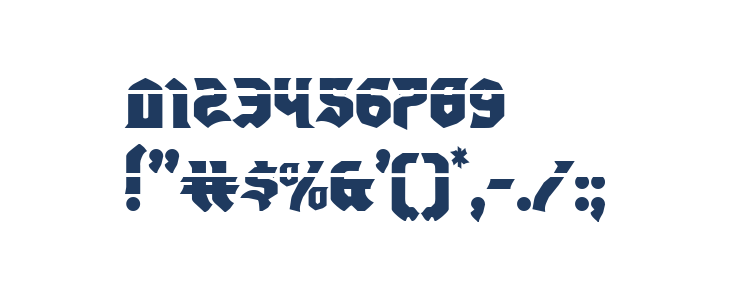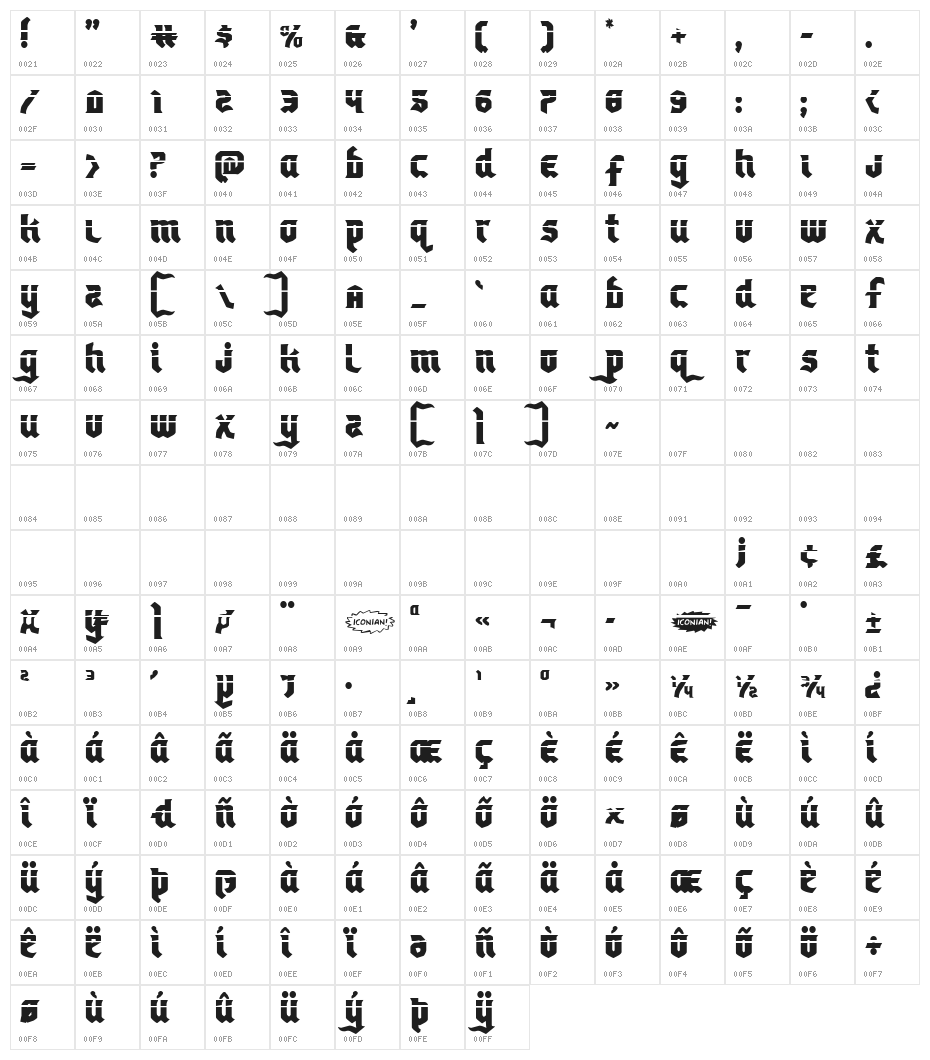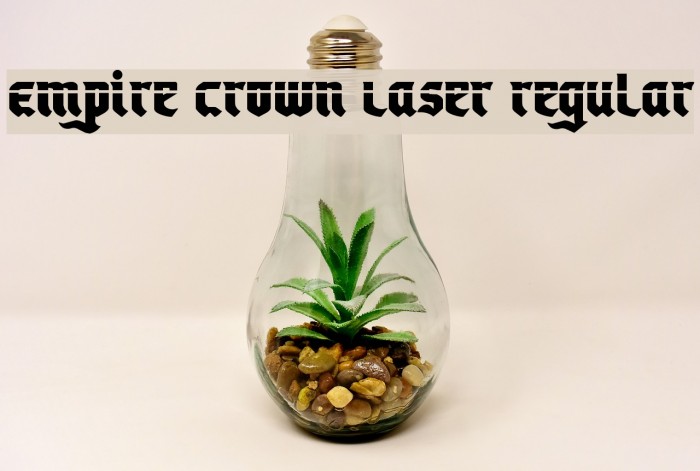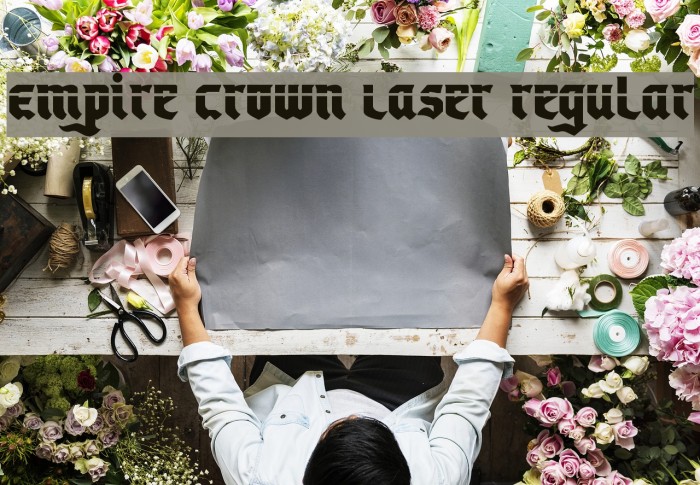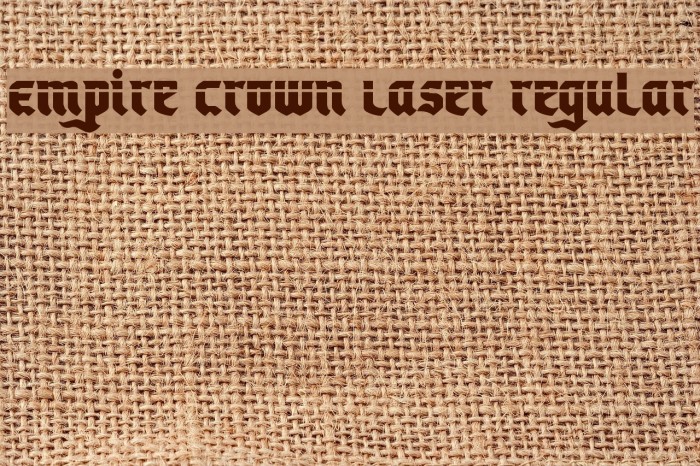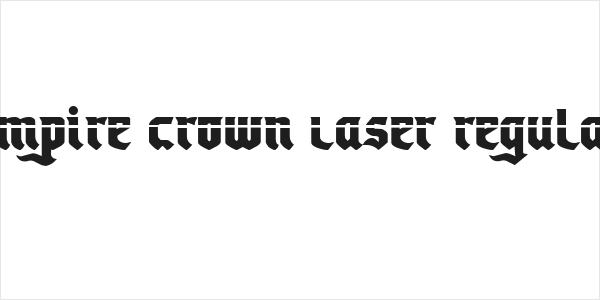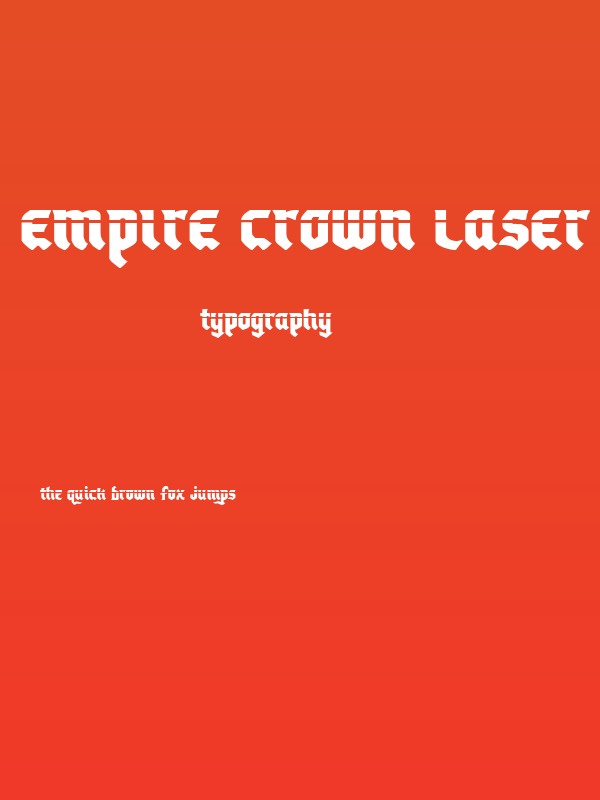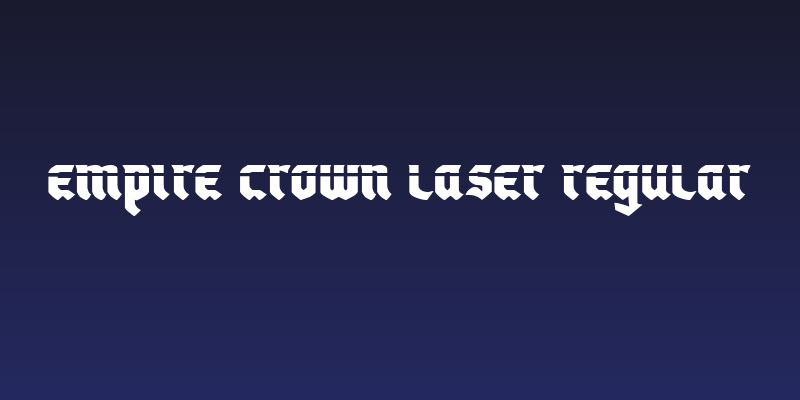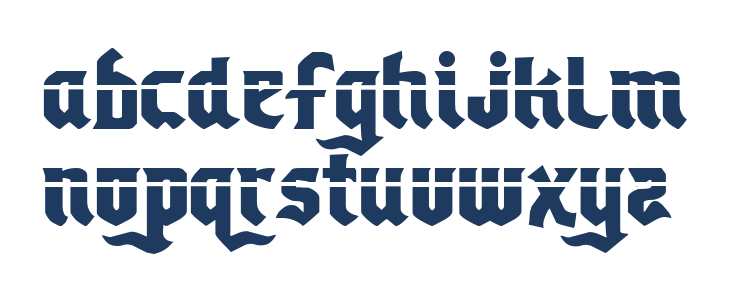
Empire Crown Laser Regular Font
Empire Crown Laser Regular Description
This font features a bold, angular design with a strong presence, reminiscent of medieval or gothic styles. The characters are sharply defined with thick strokes and pointed edges, creating a dramatic and impactful appearance. The uppercase and lowercase letters maintain a consistent style, with a uniform height and width that enhances readability. Numbers and special characters follow the same design principles, ensuring a cohesive look across all text elements. The font's unique style makes it suitable for projects that require a bold and authoritative aesthetic.